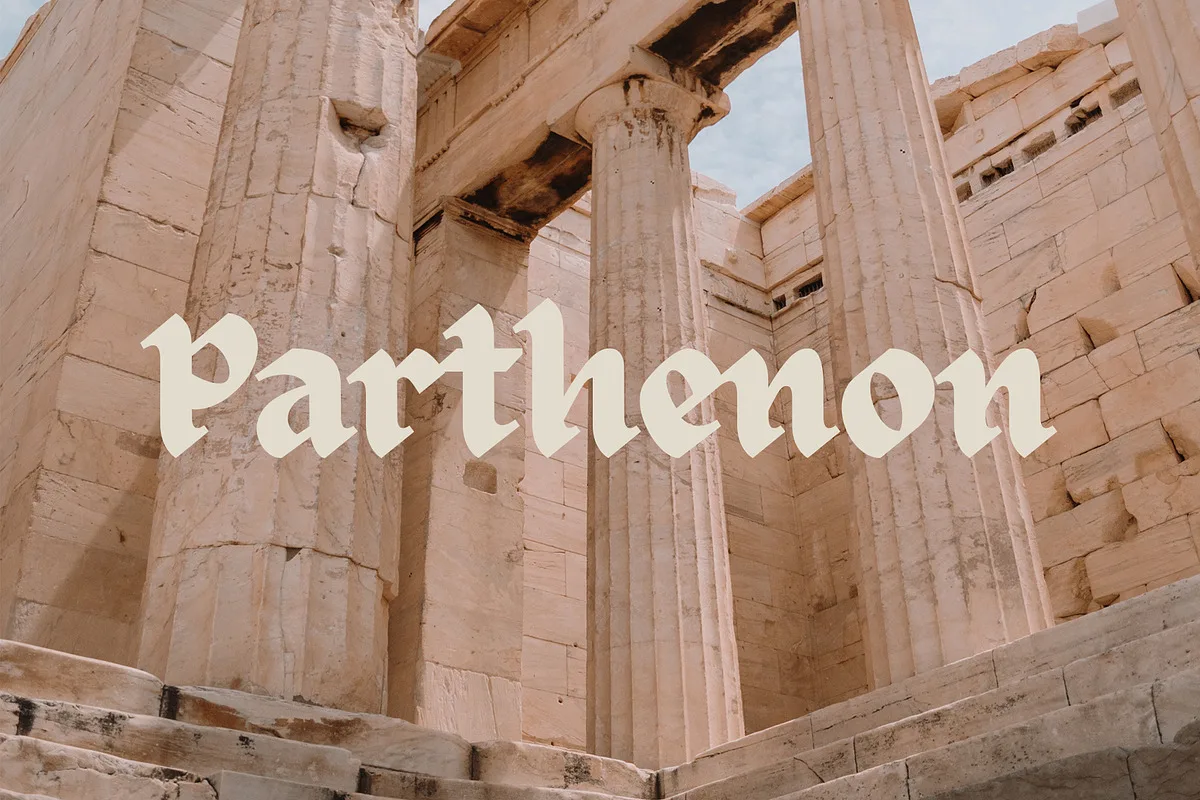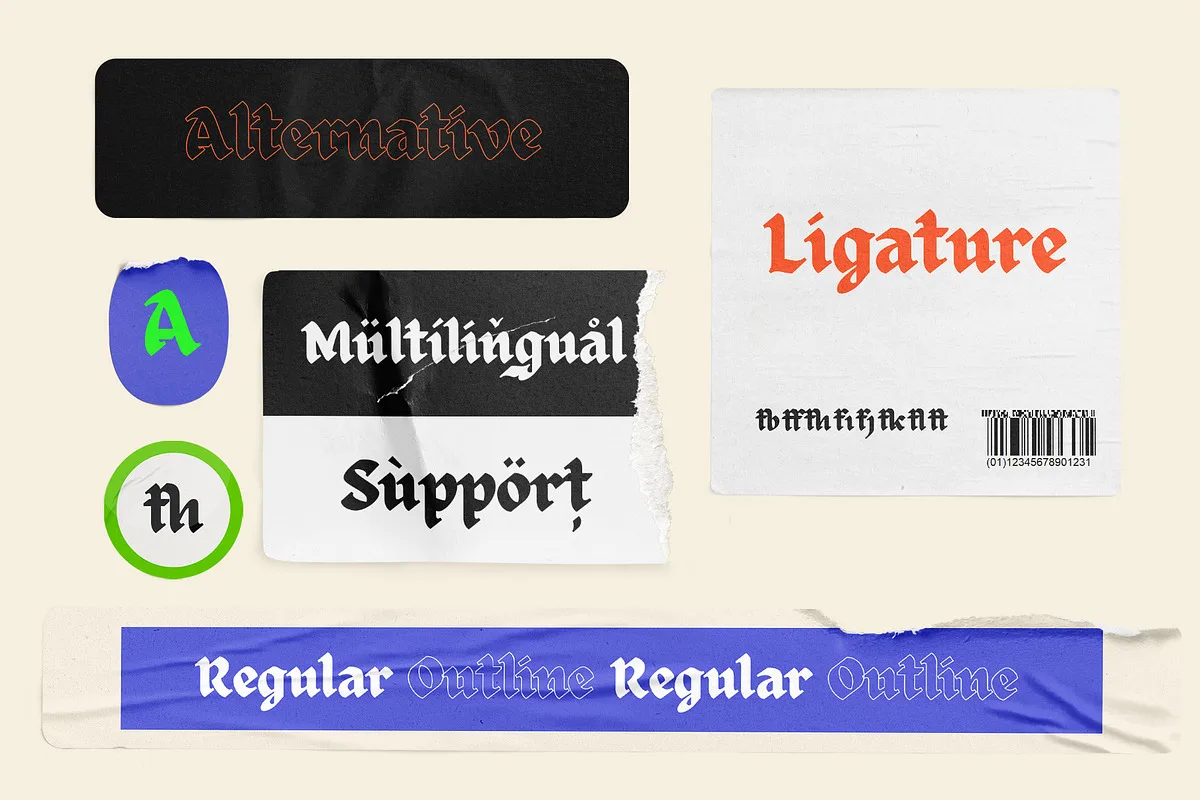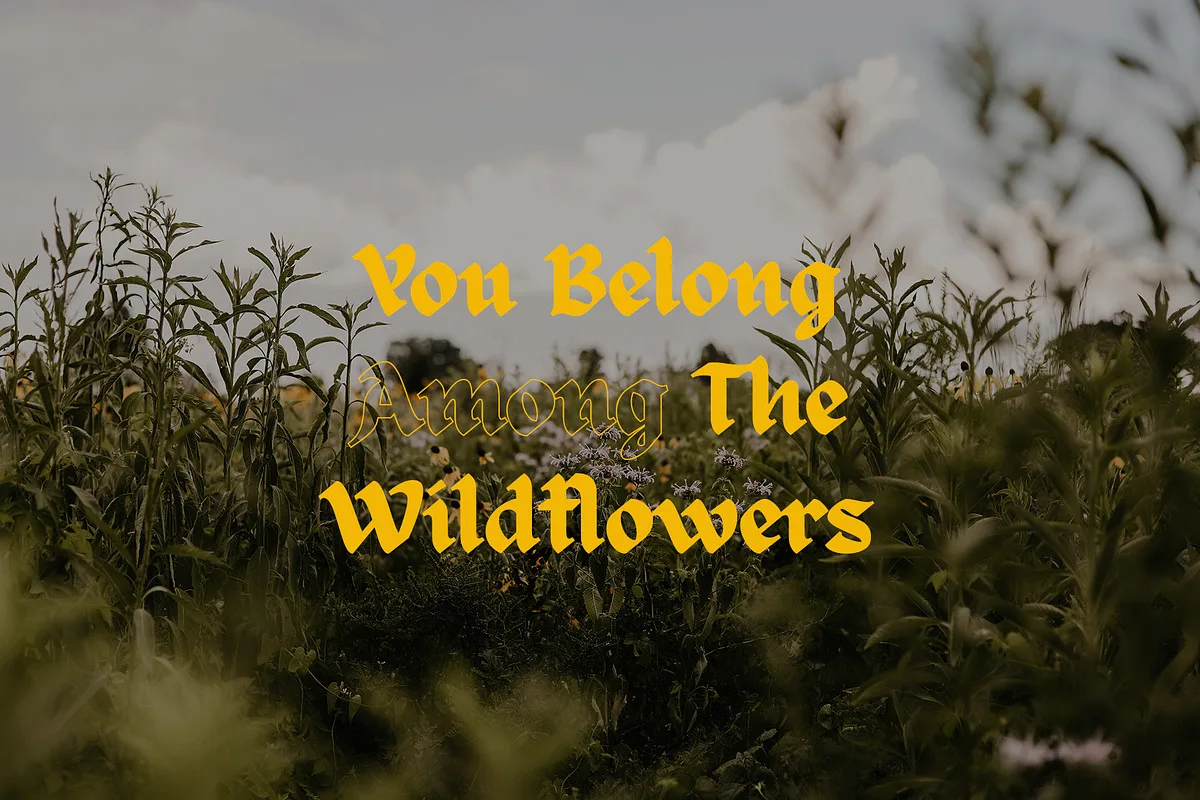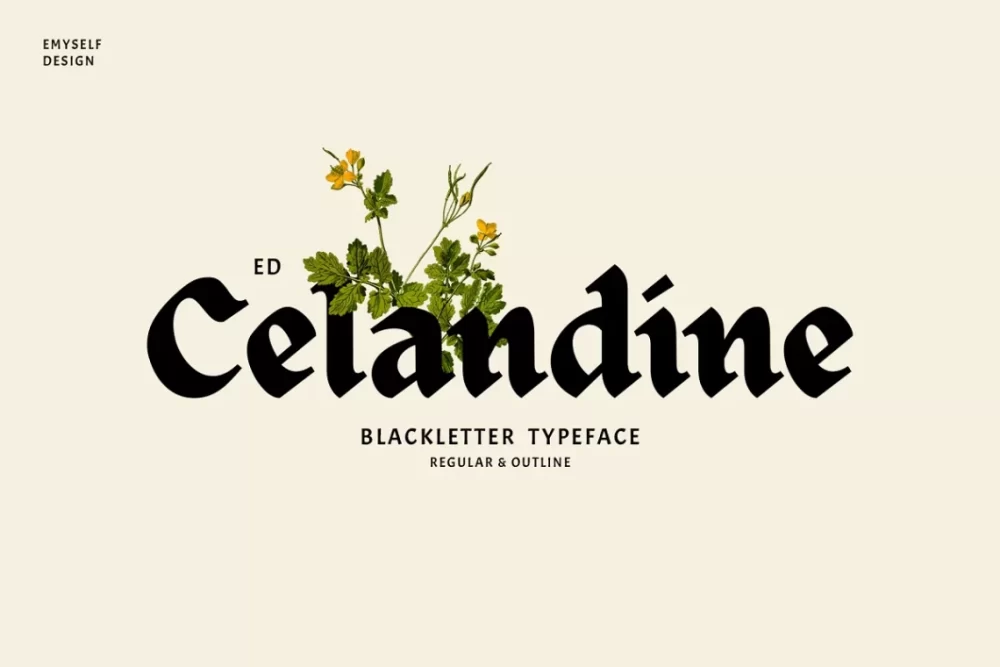
ED Celandine is a modern blackletter font designed by Emyself Design, blending minimalist elegance with classic gothic charm. Available in Regular and Outline styles, this versatile font pairs seamlessly with other typefaces, making it ideal for creative projects.